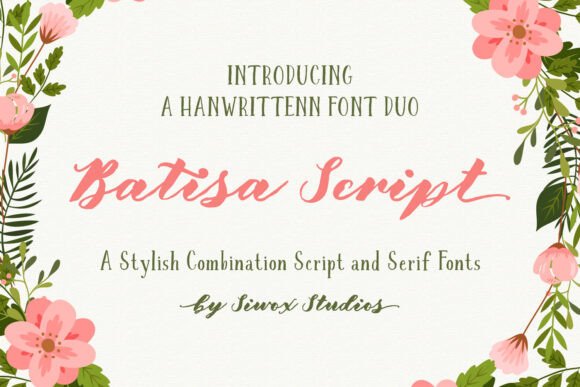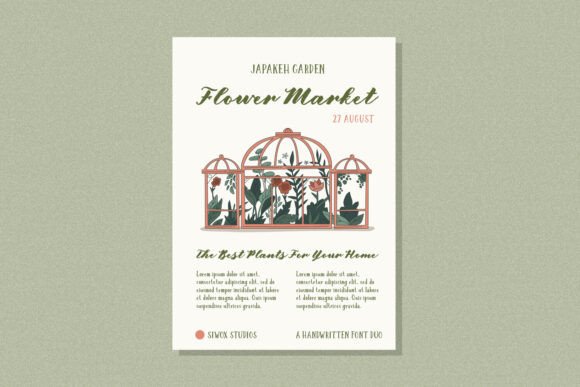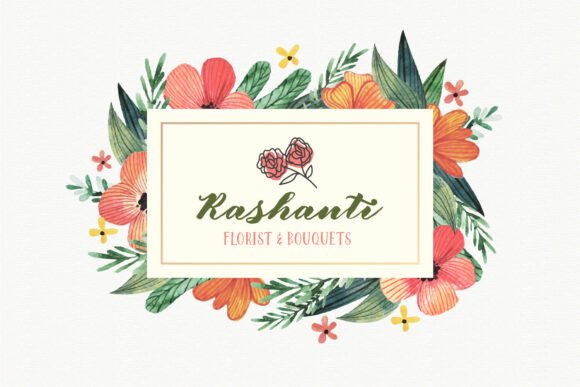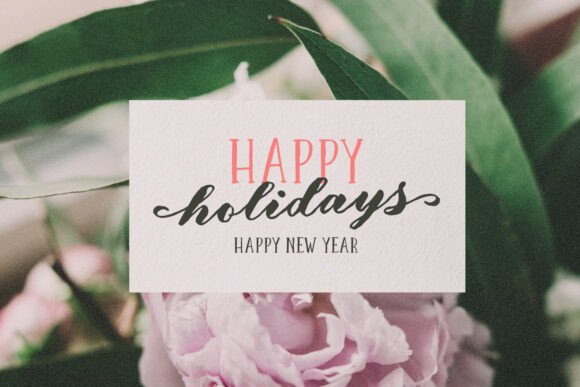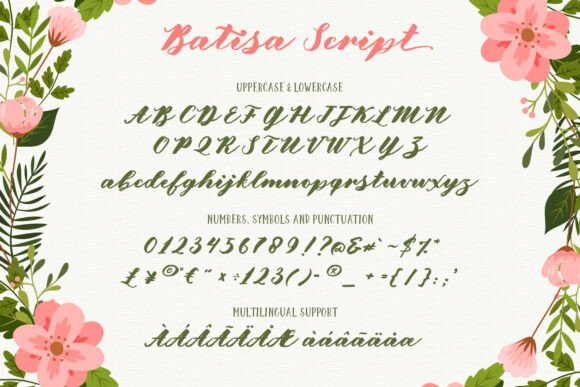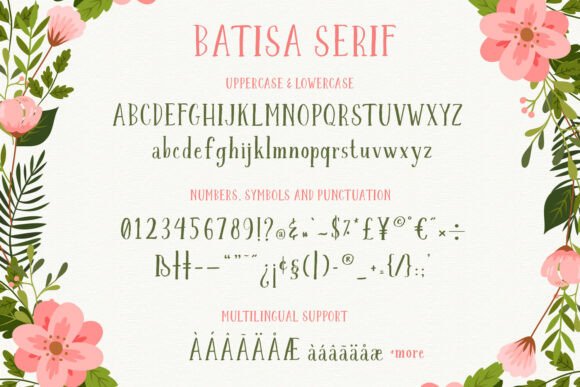
Introduction to Batisa Duo Font
Have you ever been working on a creative project and suddenly, the perfect font eludes you? You envision a beautiful, rustic label, but the text just doesn’t quite match the charm of your design. That’s where the Batisa Duo Font comes in – a high-quality, PUA-encoded font duo designed to elevate your crafts and leave a lasting impression.
As a designer, you know the value of having a reliable design resource at your fingertips. The Batisa Duo Font is that perfect resource, offering a versatile pair of fonts that can be used separately or together to add a touch of elegance and whimsy to your projects. Whether you’re working on greeting cards, logo designs, or typographic masterpieces, this font duo is sure to be a game-changer.
Key Features of Batisa Duo Font
- High-quality font with a unique, modern design perfect for creative projects and design resources.
- Unique characteristics include a bold, yet elegant aesthetic, and a wide range of glyphs and characters for effective communication.
- Perfect for use in a variety of design applications, including logos, typography, and digital graphics.
Honest Review: Batisa Duo Font
I recently came across the Batisa Duo Font, a fantastic design resource for creatives working on a variety of projects. The font is a beautiful, high-quality addition to any creative endeavor.
What works well with the Batisa Duo Font is its versatility. The font is available in both regular and bold weights, making it perfect for a range of design applications. Whether you’re working on a logo, typography-heavy poster, or even a digital product, the Batisa Duo Font is sure to deliver.
- ✨ Great for a wide range of creative projects, from logos to digital products
However, I do have one major criticism: the font could benefit from more language support. As it stands, the Batisa Duo Font only includes support for a handful of languages, which may limit its usability for designers working on global projects.
Overall, I’d highly recommend the Batisa Duo Font to designers looking for a high-quality, versatile font to add to their design arsenal. With a little more language support, this font could be truly unbeatable.
The Batisa Duo Font is a versatile design resource that offers a unique combination of elegance and sophistication. With its high-quality design and transparent background, this font is perfect for creative projects that require a touch of class.
The Batisa Duo Font is perfect for a variety of creative projects, including:
- Blog posts and social media graphics